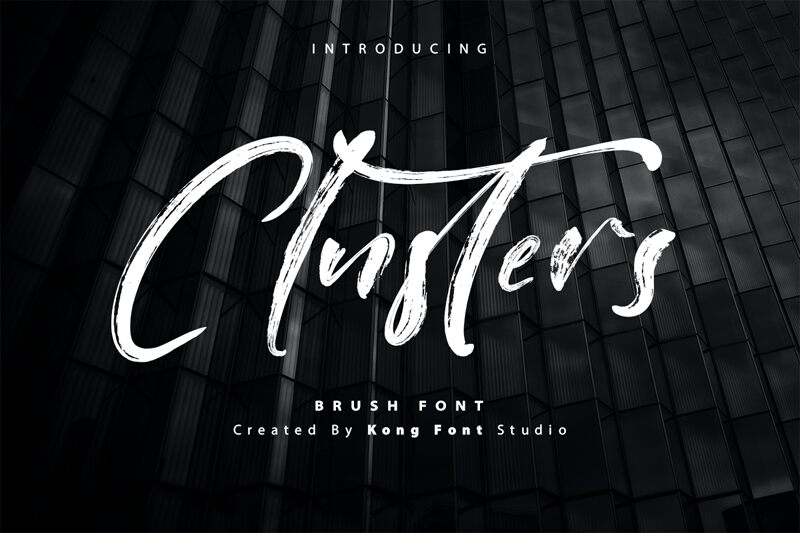
Clusters
Clusters, the brush font designed by Kong Font, adds a touch of whimsy to any project. With its semi-light weight, this font exudes elegance and playfulness simultaneously.
Its flowing strokes and organic forms make it perfect for greeting cards, invitations, and event posters. The Clusters font beautifully accentuates handwritten quotes or motivational messages on social media graphics. Its versatility also suits branding projects for boutique shops or aromatherapy products. Whether you're designing a menu for a trendy café or creating an eye-catching logo for a wellness brand, Clusters is the ideal choice to inject personality into your designs.